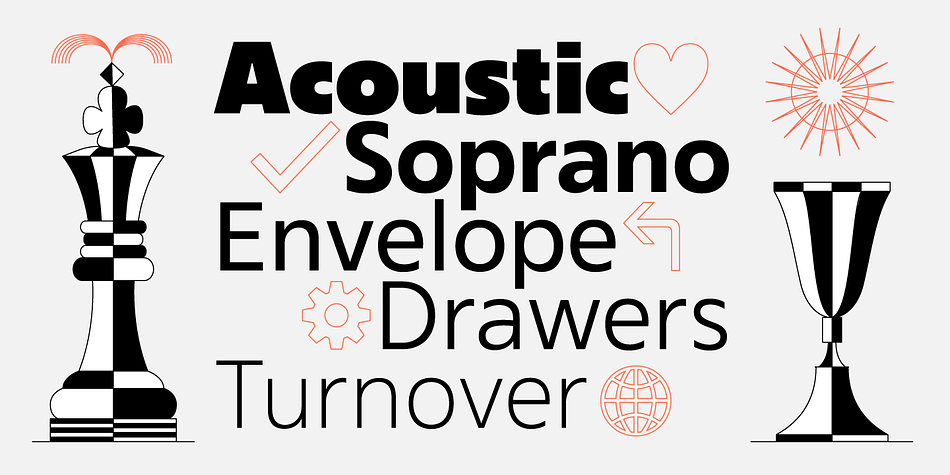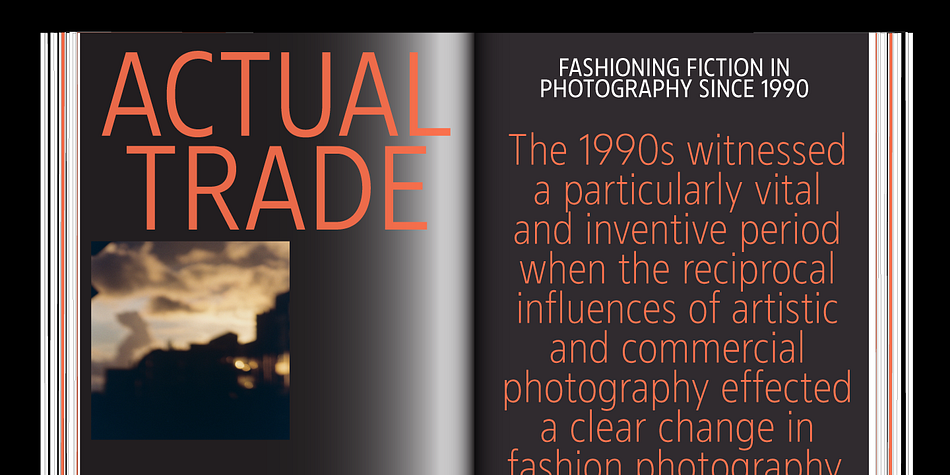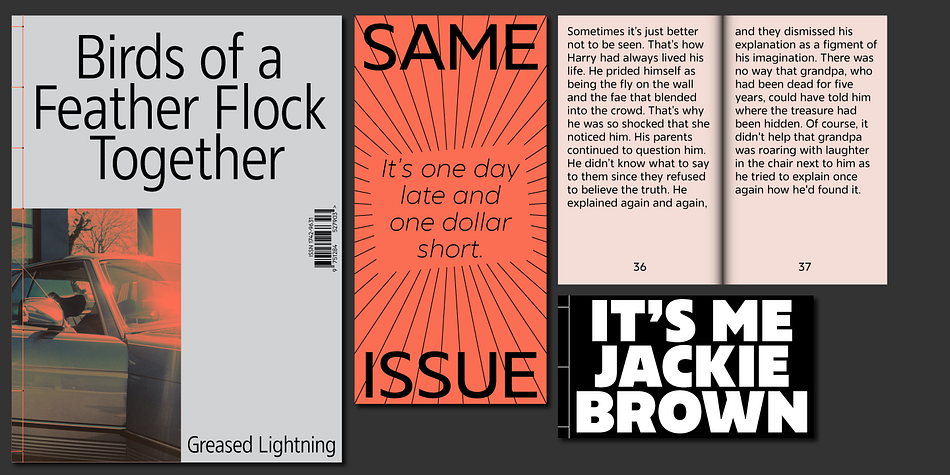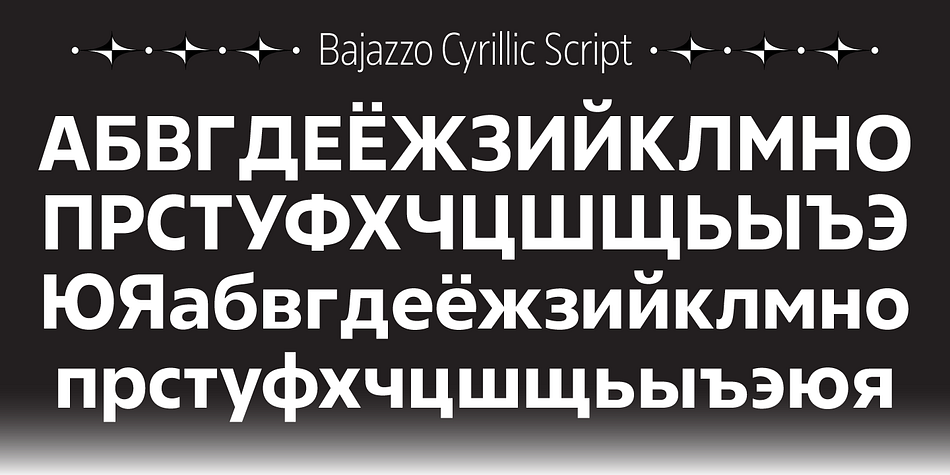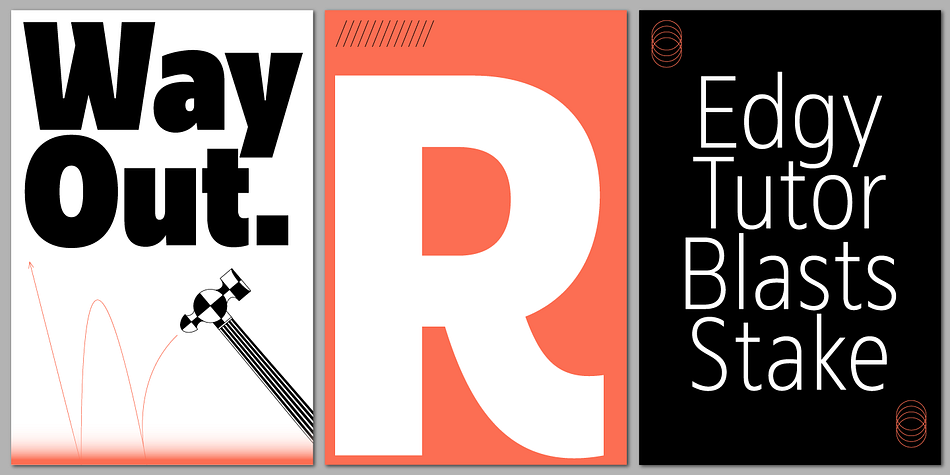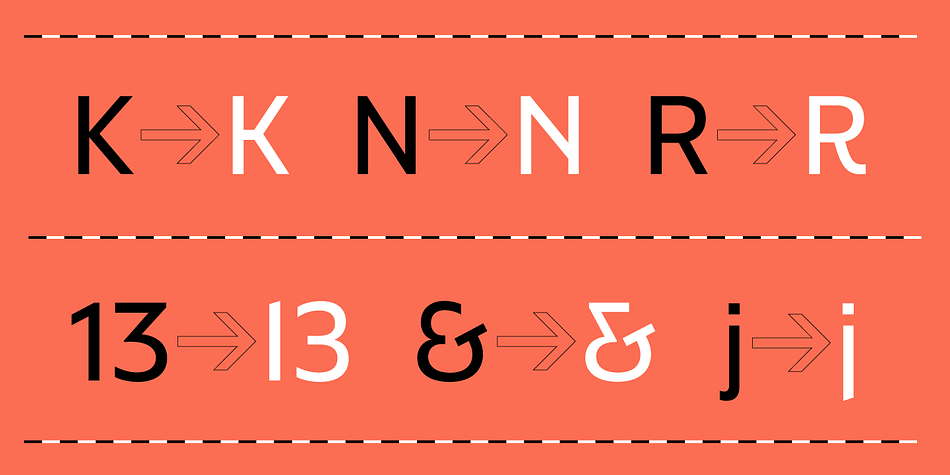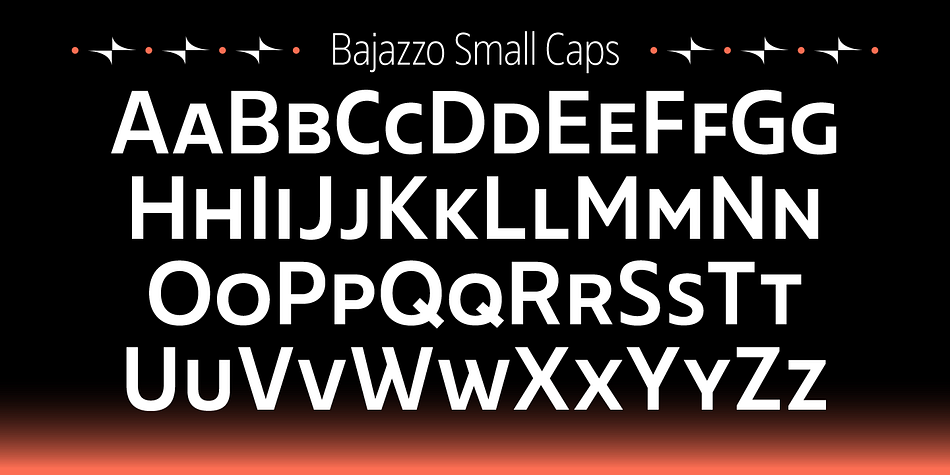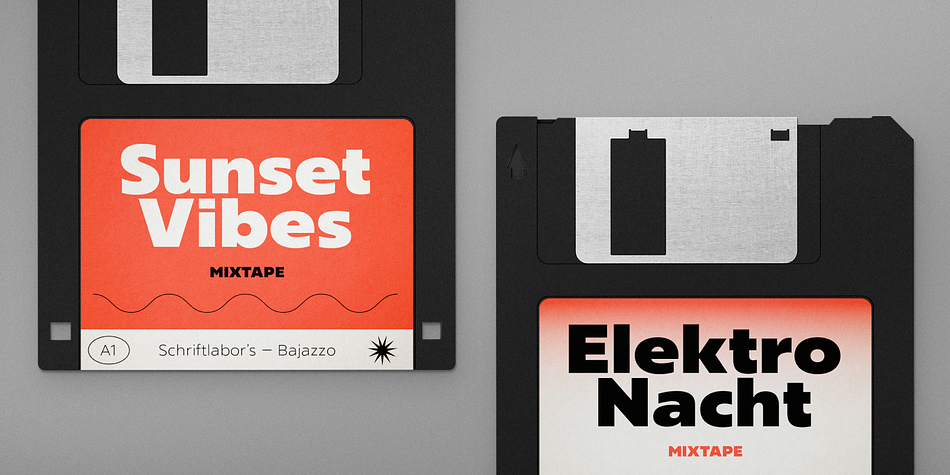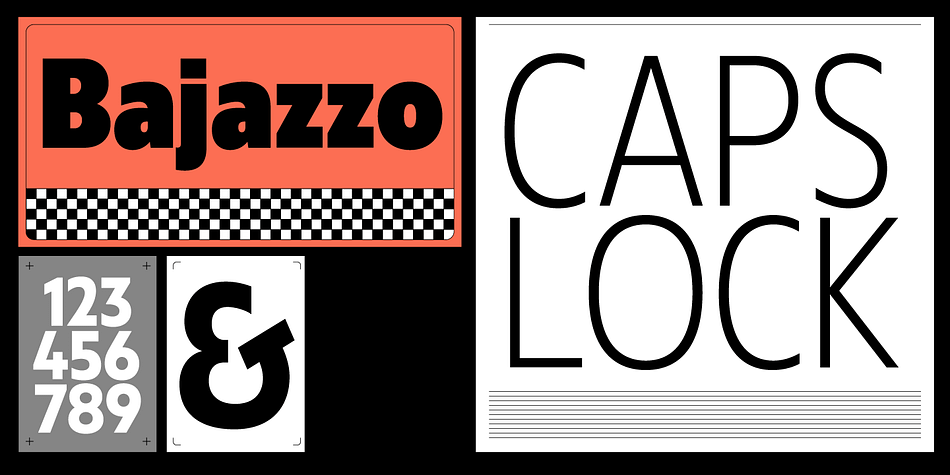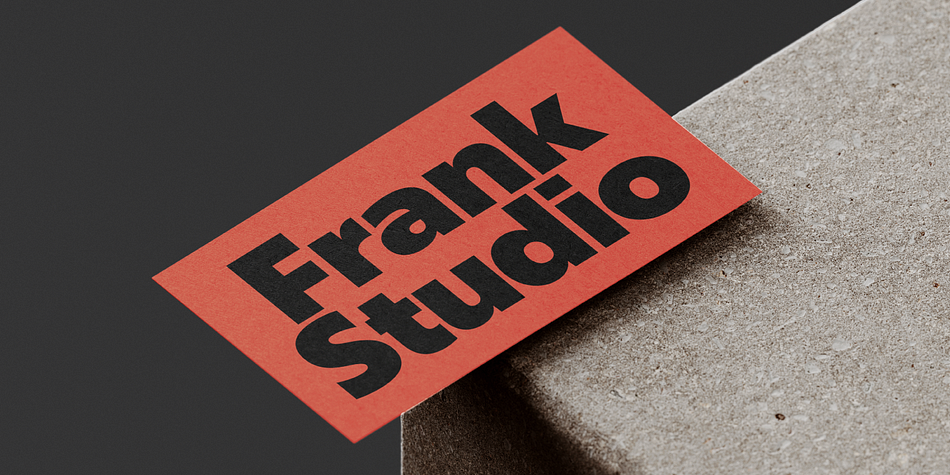
Bajazzo
Designed by Lisa Schultz, Bajazzo is a sans serif font family. This typeface has fifty-four styles and was published by Schriftlabor.
Bajazzo is a multi-weight and multi-width humanist sans-serif typeface. Inspired by old wood-type specimens, its timeless and unapologetic design lends itself for posters just as much as it does for text. Its extensive range of styles, widths, and weights make it fit for use in practically any application.